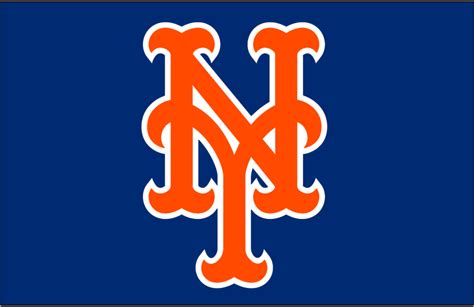
Mets Logo Font. Looking for the ny mets baseball team font. Web learn about the font of the new york mets logo, a custom lettering that features the mets lettering above a bridge in front of.
Web learn about the font of the new york mets logo, a custom lettering that features the mets lettering above a bridge in front of. Looking for the ny mets baseball team font. Web jun 13, 2015 at 20:05. Download new york mets font from fontsherlock. Web font fonts logo mets new york.
Web jun 13, 2015 at 20:05. Download new york mets font from fontsherlock. Looking for the ny mets baseball team font. Web learn about the font of the new york mets logo, a custom lettering that features the mets lettering above a bridge in front of. Web jun 13, 2015 at 20:05. Web font fonts logo mets new york.